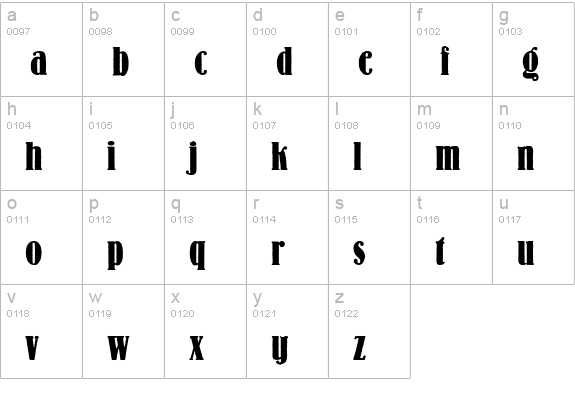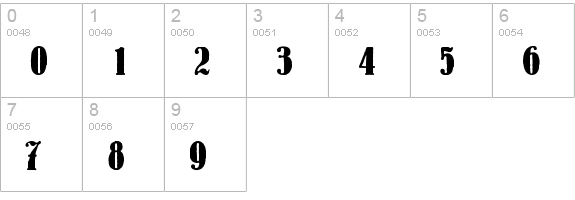
LouisCd-Bold Font Details
LouisCd-Bold is a strong, high-contrast variant in the LouisCd typeface family \xE2\x80\x94 well suited to headlines, attention-grabbing titles, and strong calls-to-action.
LouisCd-Bold is a modern and stylish typeface that exudes confidence and sophistication. With its bold and impactful design, this font is perfect for making a statement in your projects. The sharp edges and clean lines of LouisCd-Bold give it a sleek and professional look that is sure to grab attention. What makes LouisCd-Bold even more appealing is that it is available for free download at FontsMarket.com. This means you can easily access this high-quality font without any cost, making it an excellent choice for designers, creatives, and anyone looking to elevate their work with a touch of elegance. Whether you're designing a logo, creating marketing materials, or working on a branding project, LouisCd-Bold is a versatile font that will help you achieve your desired aesthetic with ease. Download it now for free and add a touch of sophistication to your designs.